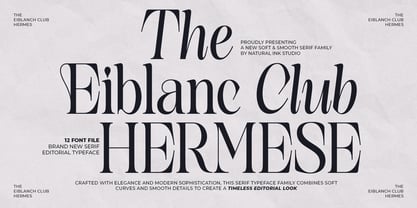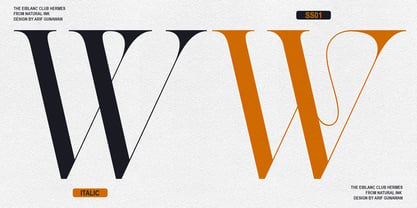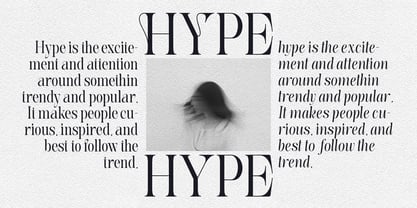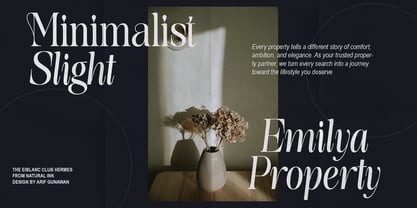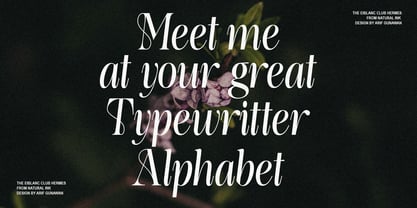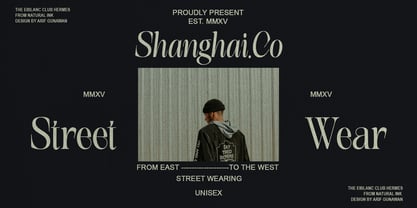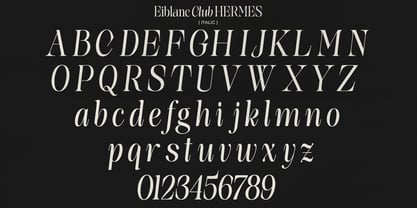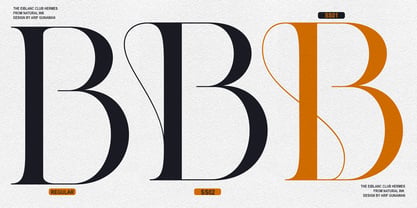
The Eiblanc Club Hermese
by Natural Ink
The The Eiblanc Club Hermese Font Family was designed by Arif Gunawan and published by Natural Ink. The Eiblanc Club Hermese contains 12 styles and family package options. More about this family
THE EIBLANC CLUB HERMESE is an elegant and versatile serif typeface family featuring 12 carefully crafted font files, designed to bring sophistication and timeless beauty to modern creative projects. Combining classic editorial inspiration with contemporary refinement, this font family offers graceful letterforms, balanced proportions, and distinctive serif details that create a luxurious and professional appearance.
Perfect for branding, editorial layouts, fashion campaigns, magazines, packaging, logos, invitations, and premium marketing materials, The Eiblanc Club Hermese adapts effortlessly to both bold headlines and refined body text. Its versatility allows designers to create cohesive visual identities with confidence, while maintaining exceptional readability and style.
With its harmonious blend of elegance, functionality, and modern sophistication, The Eiblanc Club Hermese is an ideal choice for designers seeking a premium serif family that delivers both beauty and versatility across a wide range of applications.
Designers: Arif Gunawan
Foundry: Natural Ink